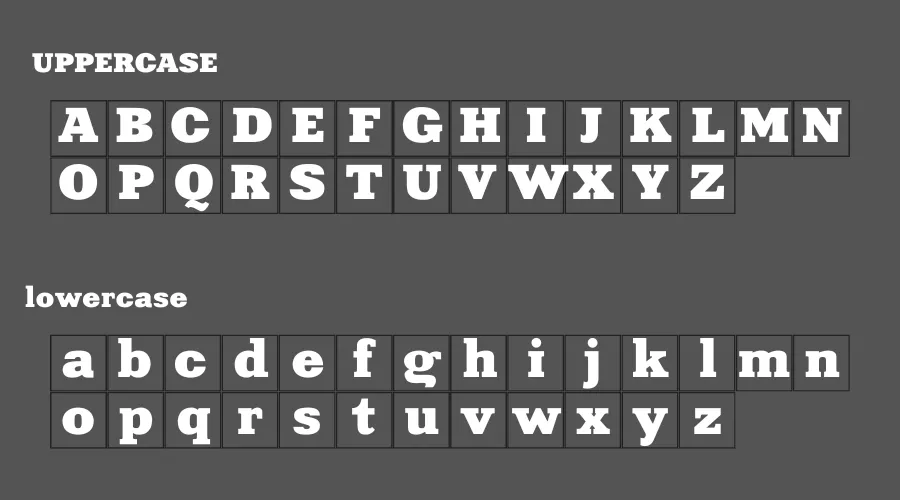
Xenia Extended C Font
About Xenia Extended C Font
The Xenia Extended C font is part of the Cyrillic family and belongs to the category of slab serif texture. This stunning texture was designed by Lyubov Kuznetsova. We are offering a free version for your designs. It has elegant type of styles and weights such as bold, italic, and regular.
Its unique style and characters make it a popular choice for both digital and printed designs. Additionally, its Cyrillic origin gives it a unique flair that stands out from other typefaces. The online generator tool of this typeface will help you to transform all of your normal type of alphabet characters into stylish and stunning shapes.
The pairing quality of this typeface is amazing and can easily be paired with times new roman font and make a new gorgeous typeface. You may create various types of designs with the help of its unique texture as well as web pages, ebooks, and printings.